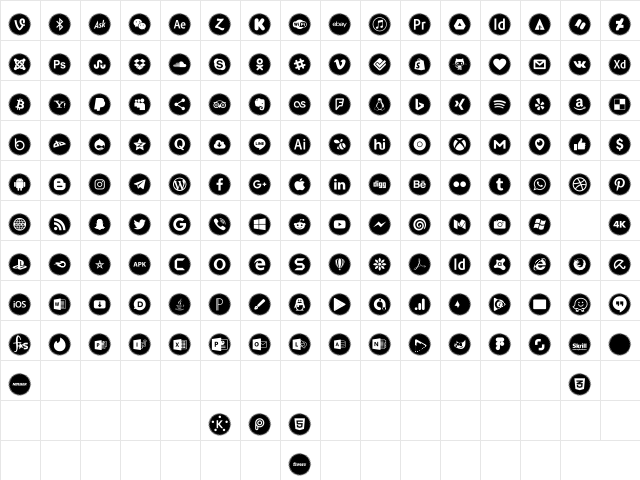
Icons Social Media 15 Regular
Design Context for Icons Social Media 15 Typeface
Icons Social Media 15 is a composed and adaptable typeface that performs quietly and consistently across a wide range of design contexts.